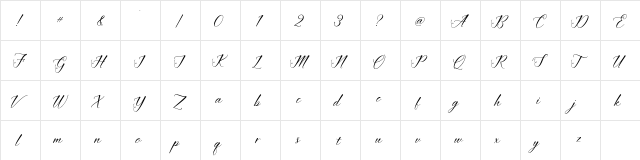
Imata Script DEMO Regular
Design Context for Imata Script DEMO Typeface
Imata Script DEMO flows with the natural rhythm of handwritten lettering, making it ideal for designs that call for warmth and personal expression.
Font Pairing: Combine Imata Script DEMO with a simple geometric sans for maximum contrast — the tension between flowing curves and clean structure is a classic typographic pairing.
Pro Tip: Pair Imata Script DEMO with a clean sans-serif for supporting text. The contrast between fluid script and geometric structure creates an elegant typographic hierarchy.